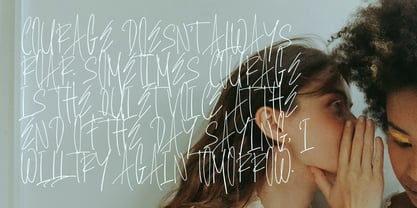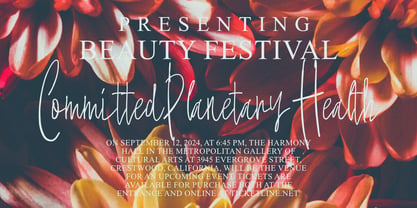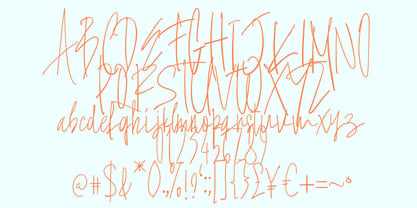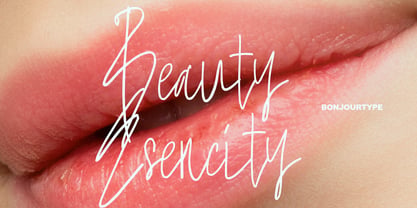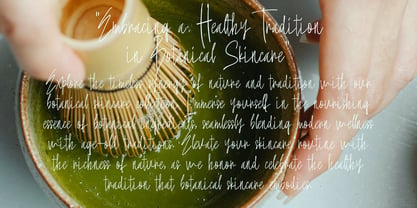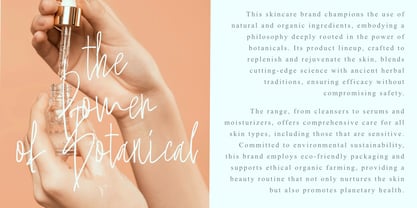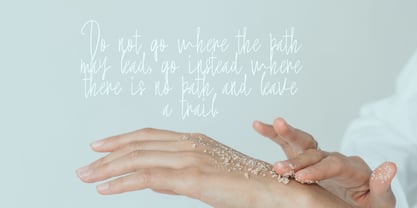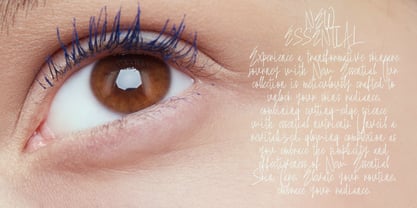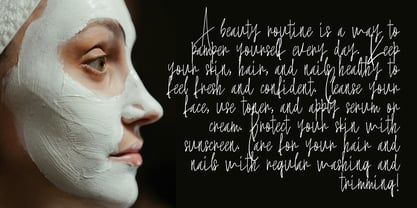
Beauty Esencity
Beauty Esencity is a modern expressive handwritten font with elegant signature-style strokes and a refined fashion aesthetic. Designed with delicate letterforms and a natural flow, it creates a luxurious yet personal feel. Perfect for fashion branding, beauty products, wedding invitations, logos, editorials, social media graphics, and stylish packaging.
Inspired by the essence of beauty, Beauty Esencity embodies elegance, femininity, and sophistication. Its graceful handwritten character makes it ideal for modern luxury branding, creative displays, and designs that seek a timeless and charming touch.
Beauty Esencity